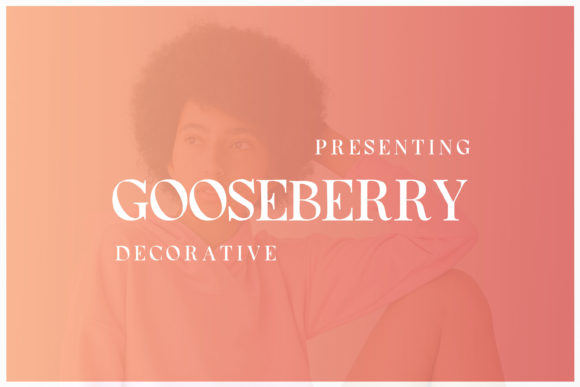
Journey into the world of Goosberry Font, a modern serif masterpiece that will ignite your creativity and elevate your designs. This font family is meticulously crafted by BeeType, renowned for their exceptional typographic artistry. Goosberry is not just a font; it's an experience that will transform your web pages, leaving a lasting impression on your audience. Immerse yourself in the beauty of Goosberry and unlock a world of design possibilities.
Goosberry's captivating curves and elegant serifs exude a timeless charm that complements any project. It's the perfect choice for creating stunning logos, eye-catching headlines, and captivating website content. The crisp lines and distinct letterforms of Goosberry ensure readability and visual appeal, making it ideal for both digital and print media.
With Goosberry, you can effortlessly elevate your branding and marketing materials. Design business cards that command attention, create brochures that inspire, and develop packaging that stands out on shelves. Goosberry's versatility extends to social media graphics, digital ads, and presentations, allowing you to convey your message with style and sophistication.
Unleash your creativity and explore the endless possibilities of Goosberry Font. Whether you're a seasoned designer or just starting, Goosberry will empower you to create designs that captivate and engage your audience. Take your projects to the next level with Goosberry Font and experience the difference it makes.